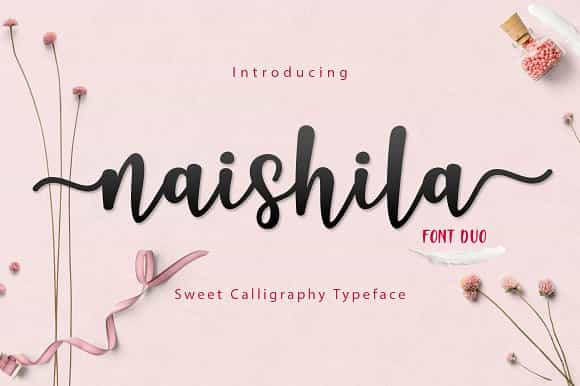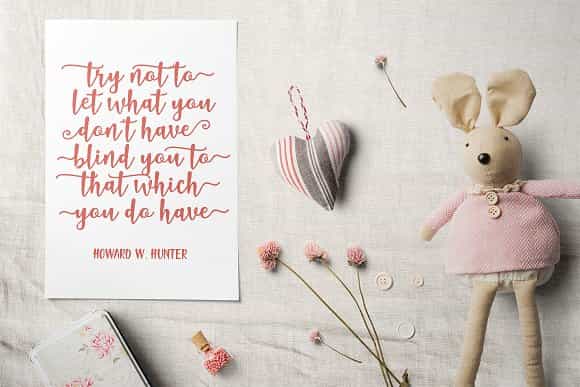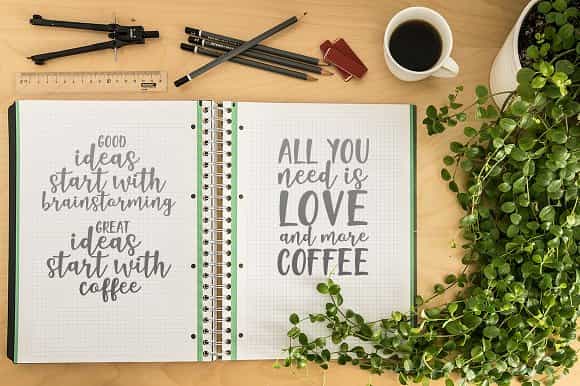
Naishila when she is introduced is a very nice and sweet font duo. This new font family has a caps and script. Naishila is a very beautiful and nice font with a dancing baseline. But here you will also get the regular font (not dancing). The script includes stylistic sets and ligatures.